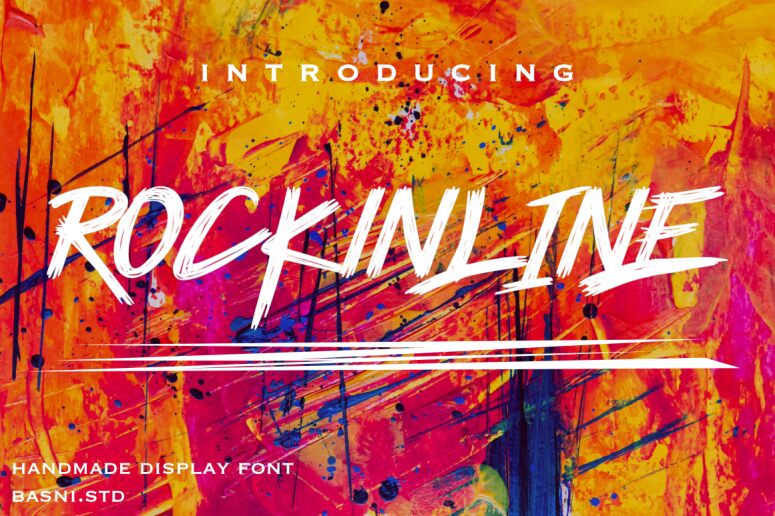
Rockinline
Rockinline, designed by Basni.std, is a semi-light script font with a trashy style. Its semi-expanded width gives it a unique touch that makes it perfect for projects that require a bold yet playful look. This font is ideal for designing logos, posters, flyers, and even social media graphics. It can be used for various themes such as fashion, music, art and more. Rockinline's edgy and modern vibe will add personality to any project you use it in. Try it out today and watch your designs rock!